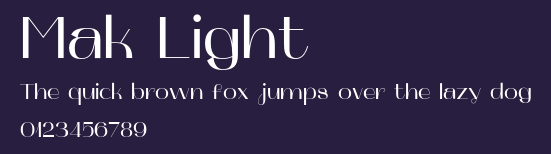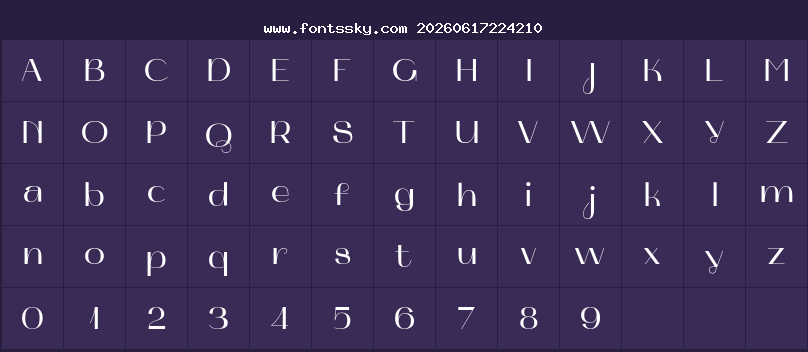
Mak Light Preview
• Font Name: Mak Light
• Designer: Valentyn Tkachenko
About Mak Light.otf
Mak Light.otf is a modern, elegant sans-serif font designed for ultimate readability and visual harmony. Perfect for branding, headlines, web design, and print materials.